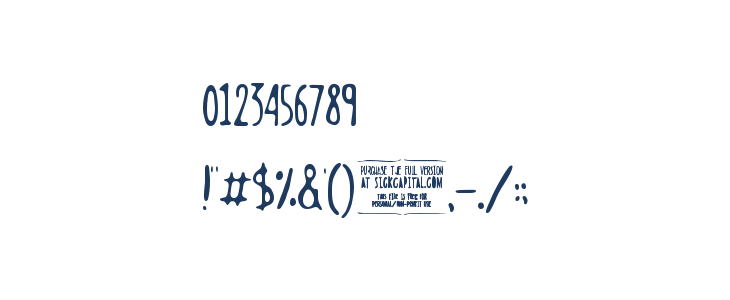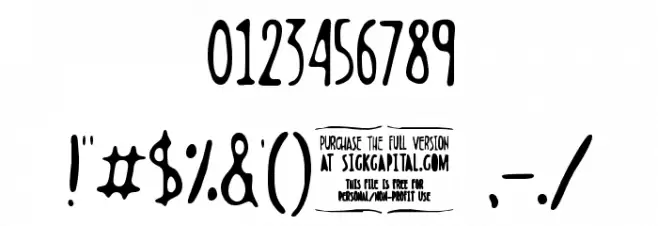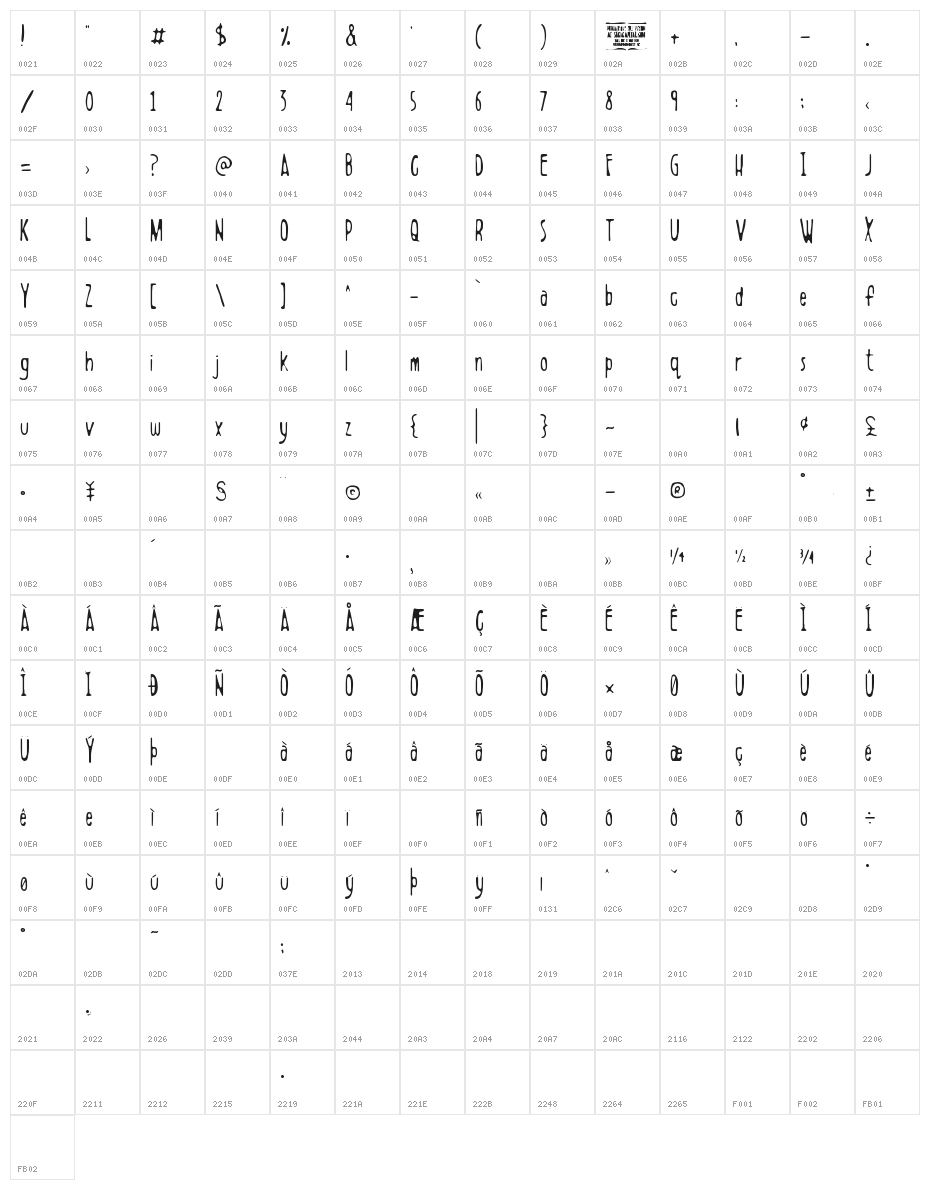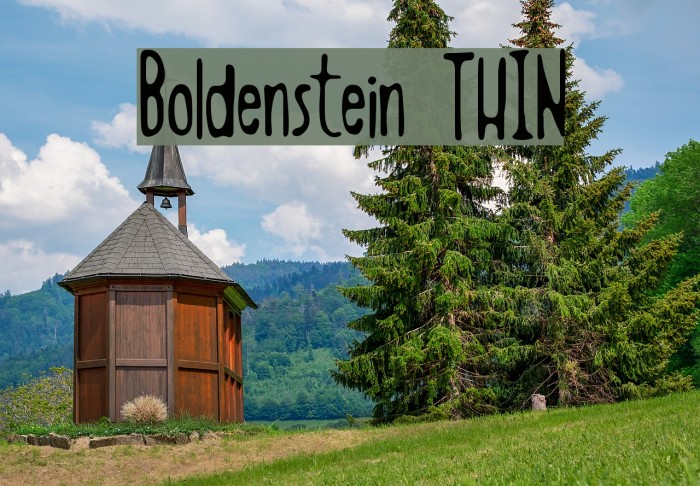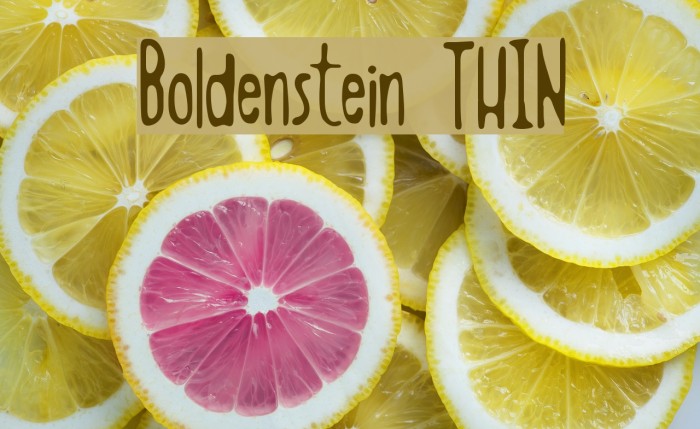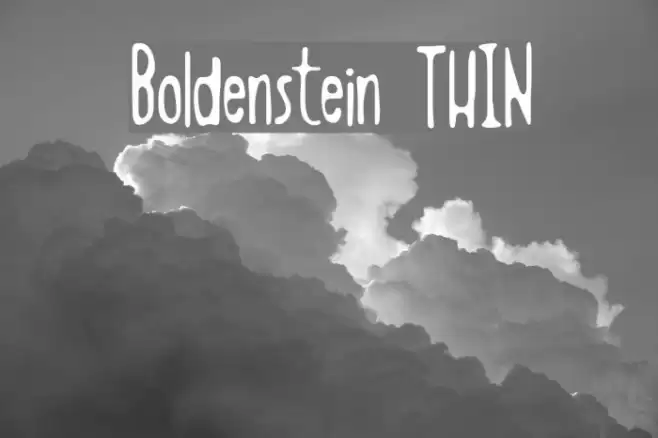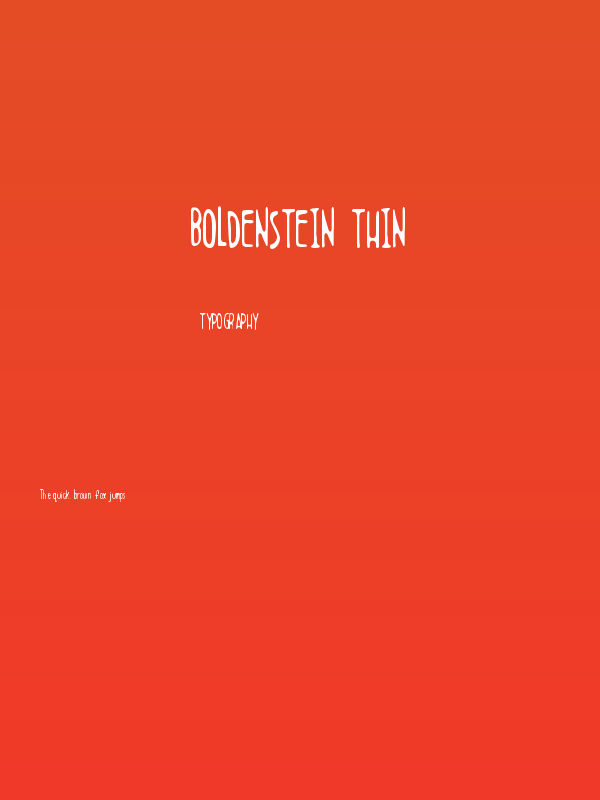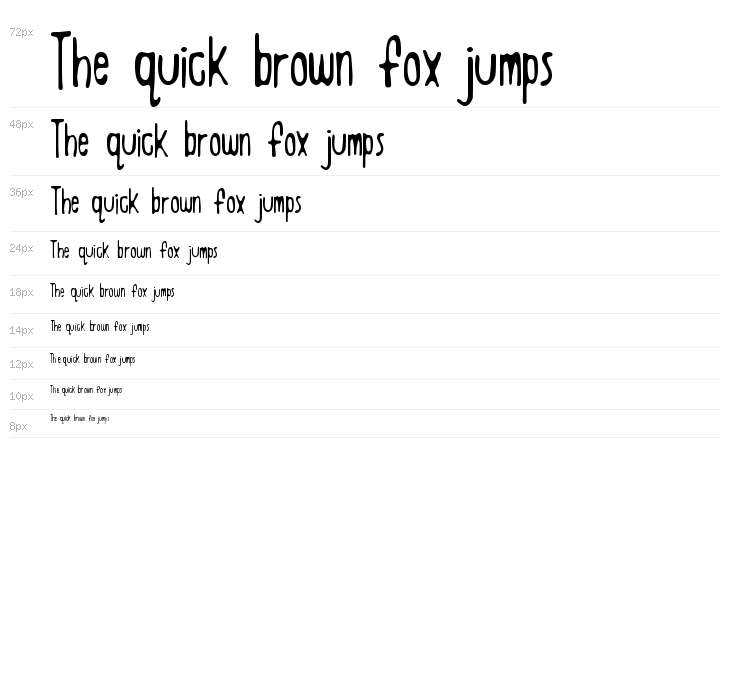
Boldenstein THIN Font
Boldenstein THIN Description
This font features a playful and quirky design with a hand-drawn aesthetic. The letters have an uneven, organic feel, with varying stroke widths that add character and charm. The uppercase and lowercase letters maintain a consistent style, while the numbers and special characters complement the overall look. This font's unique style makes it ideal for creative projects that require a touch of whimsy and individuality. The spacing between characters is relatively tight, enhancing its bold appearance despite its thin strokes.
| Proposed Projects | Ideal for children's books, creative posters, greeting cards, and playful branding. |